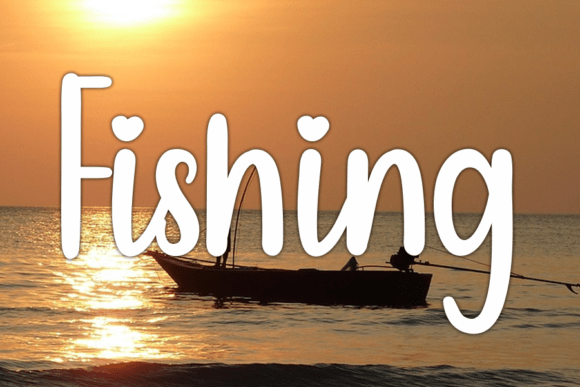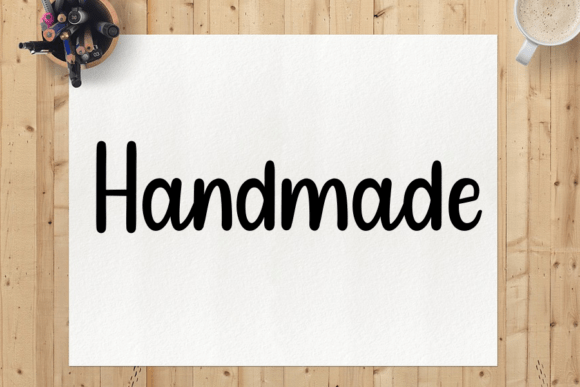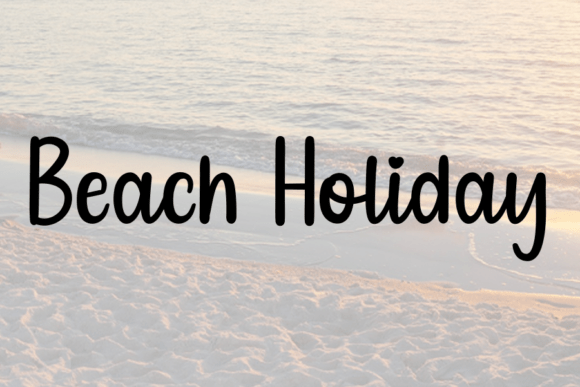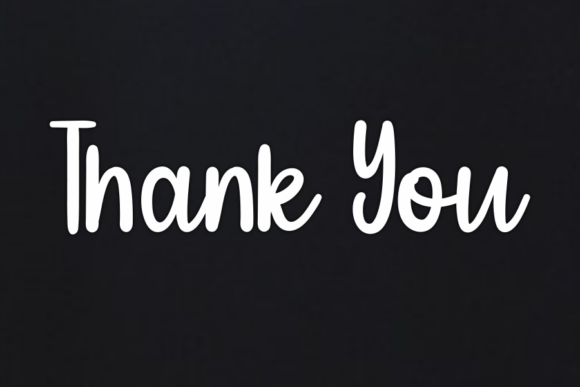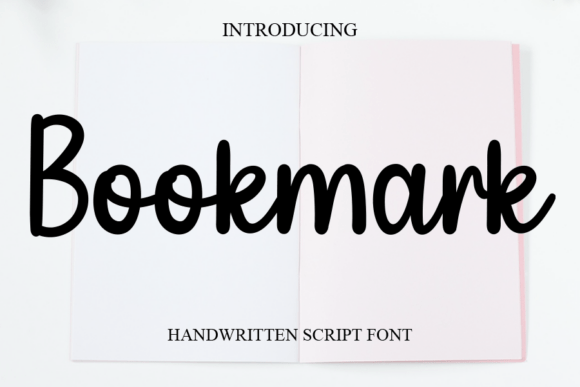
The Joy of Bookmark Font: A Designer’s New Best Friend
I’ll never forget the time I was working on a children’s book project, and my client asked me to create a custom font that would bring the story to life. I spent hours scouring the internet for the perfect typeface, but nothing seemed quite right. That was until I stumbled upon Bookmark font. With its charming, bouncy handwritten script and thick, marker-style stroke, it was love at first sight! ✨
In this article, I’ll share my experience with Bookmark font, its features, and how to make the most of it in your designs. Whether you’re a designer, crafter, or creative hobbyist, you’ll learn why this font is a great addition to your typography toolkit.
What Makes Bookmark Font Special?
Bookmark font is a delightful, handwritten script that exudes joy and fluidity. Its thick, marker-style stroke gives it a spontaneous and energetic feel, making it perfect for:
- Children’s books and educational materials 📚
- School projects and presentations 📝
- Crafty packaging design, especially for artisanal or organic products 🎨
- “Thank you” notes and greeting cards 📨
The letters connect with a natural, effortless flow that mimics real ink on paper, giving your digital designs a tangible, lived-in quality. This font is optimized for readability, ensuring that your message is clear even at smaller sizes.
- ✨ The energetic and playful vibe it brings to any design
- ✅ Excellent readability, even at smaller sizes
- 🎉 Natural, effortless flow that mimics handwriting
- 👍 Highly versatile and adaptable to various design projects
- ⚠️ Some letters may appear a bit cramped at very small sizes
- 🤔 Limited availability of stylistic alternates (but still plenty of OpenType features to explore!)
Bookmark font comes with a range of OpenType features that allow you to customize your text. Some of the features include:
- Ligatures: Combine letters for a more natural, handwritten look
- Stylistic alternates: Switch between different letterforms for added variety
- Glyphs: Access additional characters, such as flourishes and swashes, to add personality to your text
The Story Behind Bookmark Font
Bookmark font was designed with the intention of capturing the joy and spontaneity of handwriting. The designer, inspired by the feel of marker pens on paper, created a font that would bring a sense of playfulness and creativity to digital designs. With its thick, marker-style stroke and natural flow, Bookmark font is the perfect tool for designers looking to add a personal touch to their work.
| Is Bookmark font suitable for body text? | While Bookmark font is optimized for readability, it’s best suited for headlines and titles. For body text, a clearer font may be more suitable. |